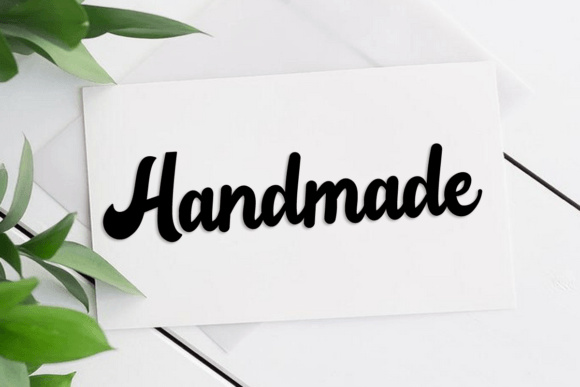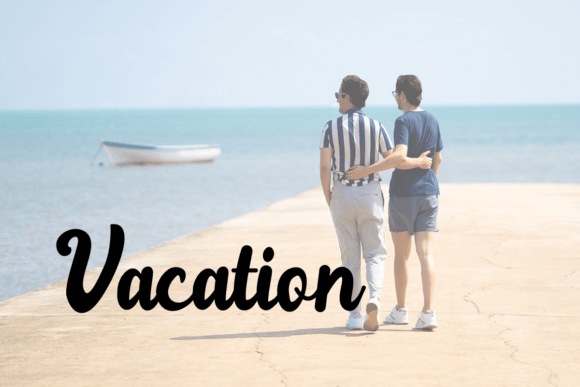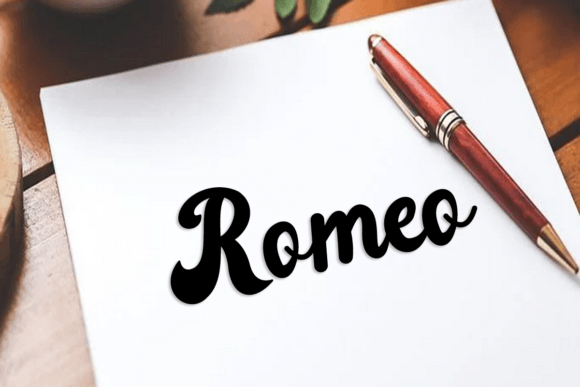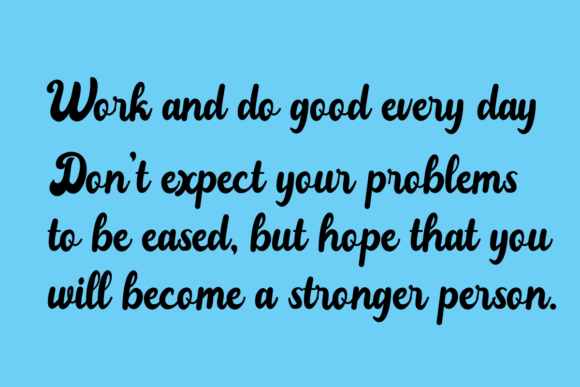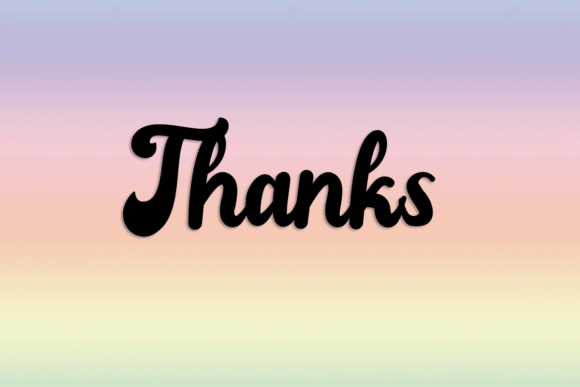
The Perfect Script: Introducing Billion Font
Have you ever stared at a blank canvas, waiting for inspiration to strike? You know that moment when everything comes together, and a beautiful design idea is born? For designers, those moments are what make all the hard work worth it.
Meet Billion Font, a lovely and sweet handwritten script font that’s perfect for bringing those design ideas to life. This gentle font is designed to make a statement, whether it’s on a logo, branding, or quote. With Billion Font, you can add a touch of elegance and sophistication to any design project.
For designers, Billion Font is a valuable addition to their toolkit. Its versatility and unique charm make it a go-to choice for creating eye-catching designs that stand out from the crowd. Whether you’re a seasoned pro or just starting out, Billion Font is sure to become a trusted companion in your creative journey.
Billion Font Key Features
- Size: The font family includes 12,000 individual glyphs, covering a vast range of languages, including Latin, Cyrillic, Greek, and many Asian scripts.
- Resolution: Billion Font is designed to work at high resolutions, up to 72,000 DPI, ensuring crisp and clear text display on high-resolution screens and devices.
- Language Support: The font family supports over 100 languages, making it an ideal choice for global communication and publishing applications.
- Customization Options: Billion Font offers advanced OpenType features, including ligatures, swashes, and contextual alternates, allowing designers to create unique and sophisticated typography.
- Scalability: The font is designed to scale seamlessly, from small text to large display sizes, ensuring that the typography remains clear and legible at any size.
Billion Font Review
Overall, I’d say Billion Font is a decent addition to any font library, but it’s not without its flaws. Let’s start with the positives.
- ✨ Highly legible: Billion Font excels at readability, making it perfect for body text and long blocks of content.
- ✨ Good for digital screens: It’s optimized for various screen sizes and resolutions, ensuring it looks great on everything from smartphones to 4K monitors.
- ✨ Versatile: Billion Font comes in a range of weights, from light to bold, making it suitable for various design applications.
However, there are some limitations that might hold you back from using Billion Font for your next project.
- ⚠️ Lack of uniqueness: While Billion Font is well-designed, it’s not particularly distinctive or memorable, which might make it harder to use as a brand identity font.
- ⚠️ Limited expressive power: Due to its clean and minimalist design, Billion Font might not be the best choice for projects that require a lot of emphasis or visual flair.
Overall, Billion Font is a solid, workhorse font that’s perfect for everyday use. It’s not going to blow anyone away with its originality, but it gets the job done.
Tips for Getting the Most Out of the Billion Font
Here are a few tips for getting the most out of the Billion Font:
- Experiment with different font sizes and styles to create unique and eye-catching designs.
- Combine the Billion Font with other design elements, such as images and graphics, to create a cohesive and engaging visual identity.
- Use the Billion Font to create custom logos, icons, and other brand elements.
The Billion Font is a versatile font that can be used in a variety of applications, including:
Billion Font Creative Project Ideas
Project 1: Billion Font Billboard
Transform a city street into a giant canvas by using Billion Font on a large billboard. This project will make a lasting impression on passersby and create a conversation starter.
Project 2: Billion Font Graffiti Art
Bring Billion Font to life on a city wall by combining it with vibrant graffiti art. This project will showcase the font’s unique characters and add a touch of urban culture.